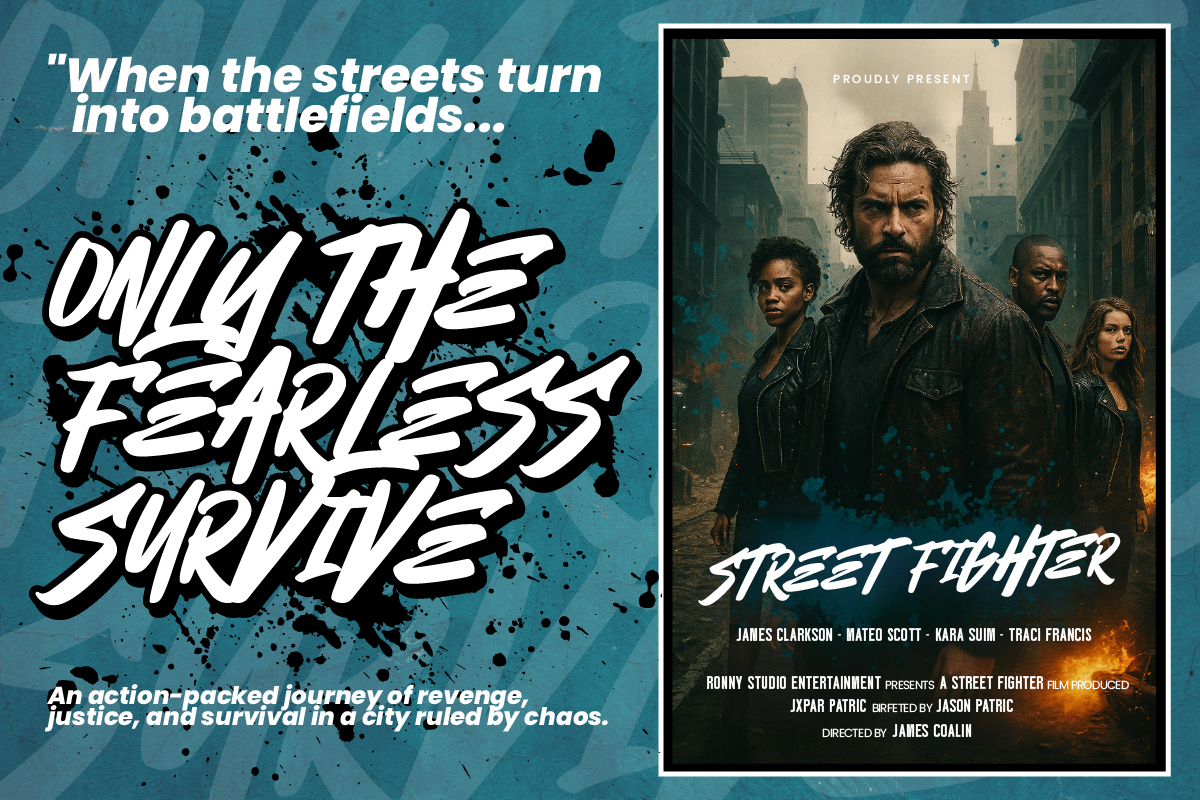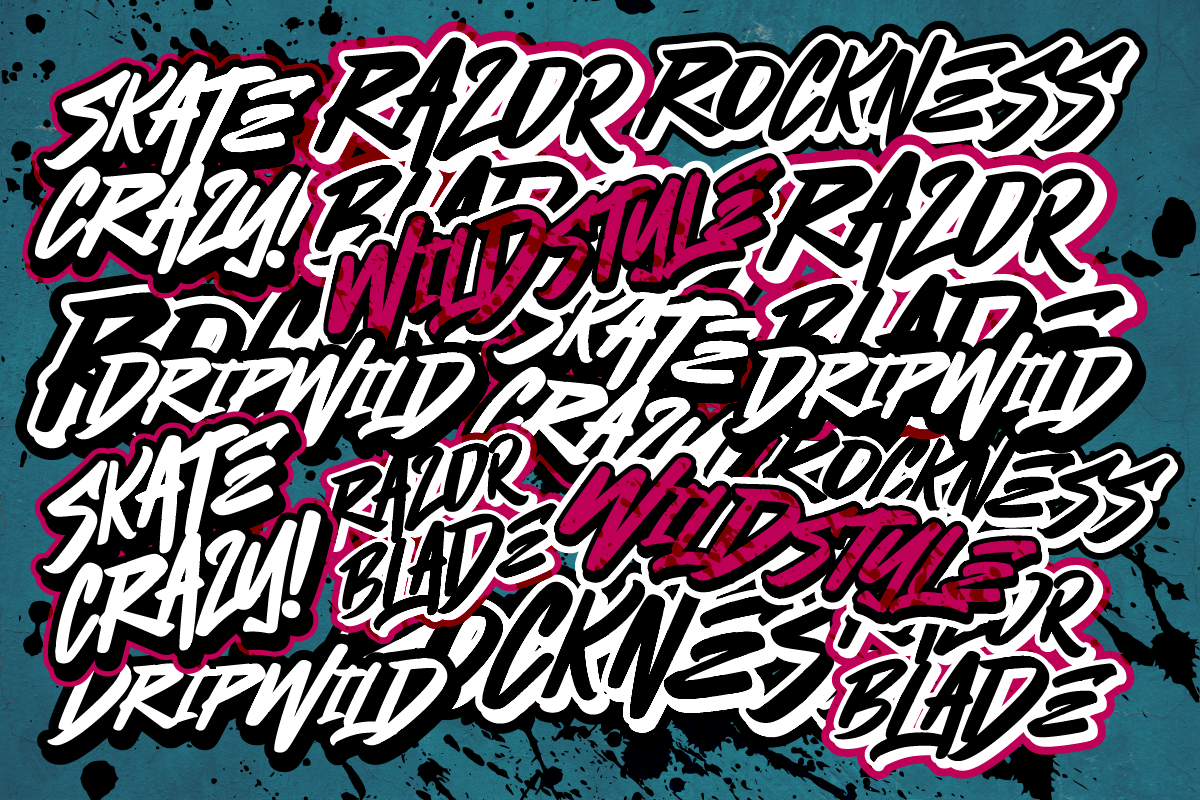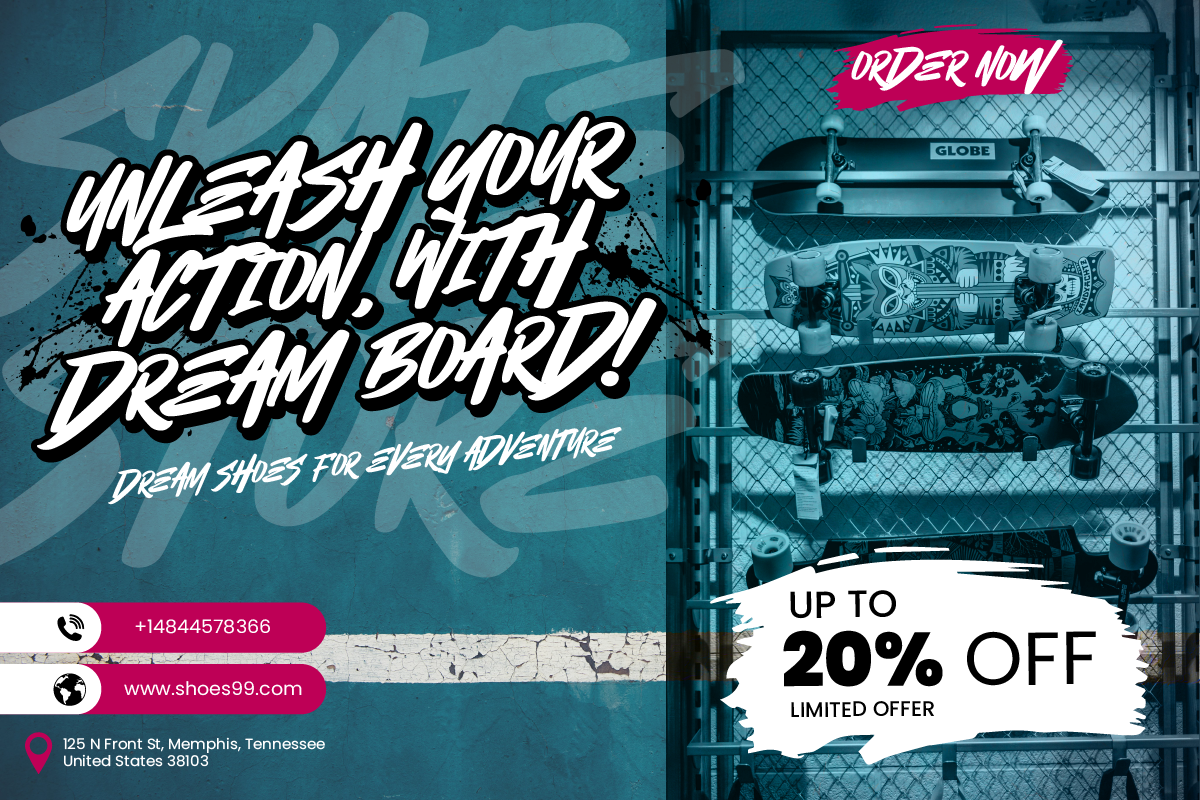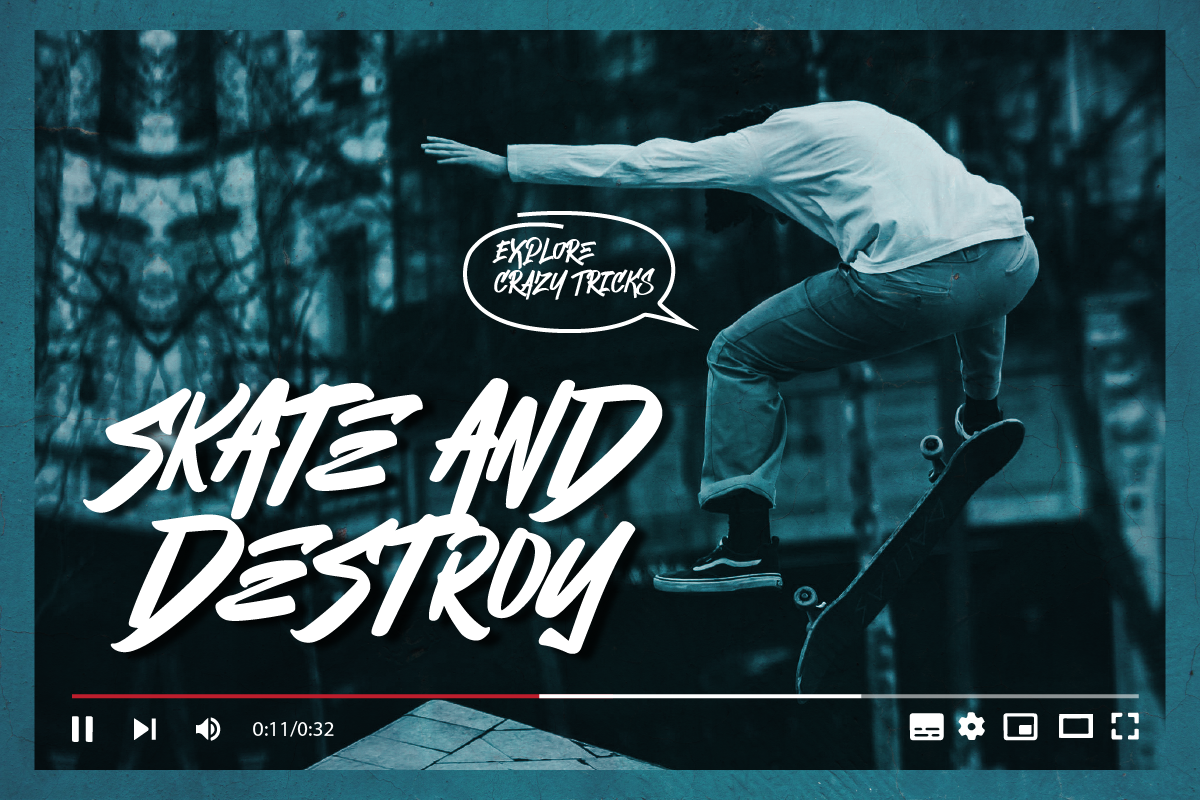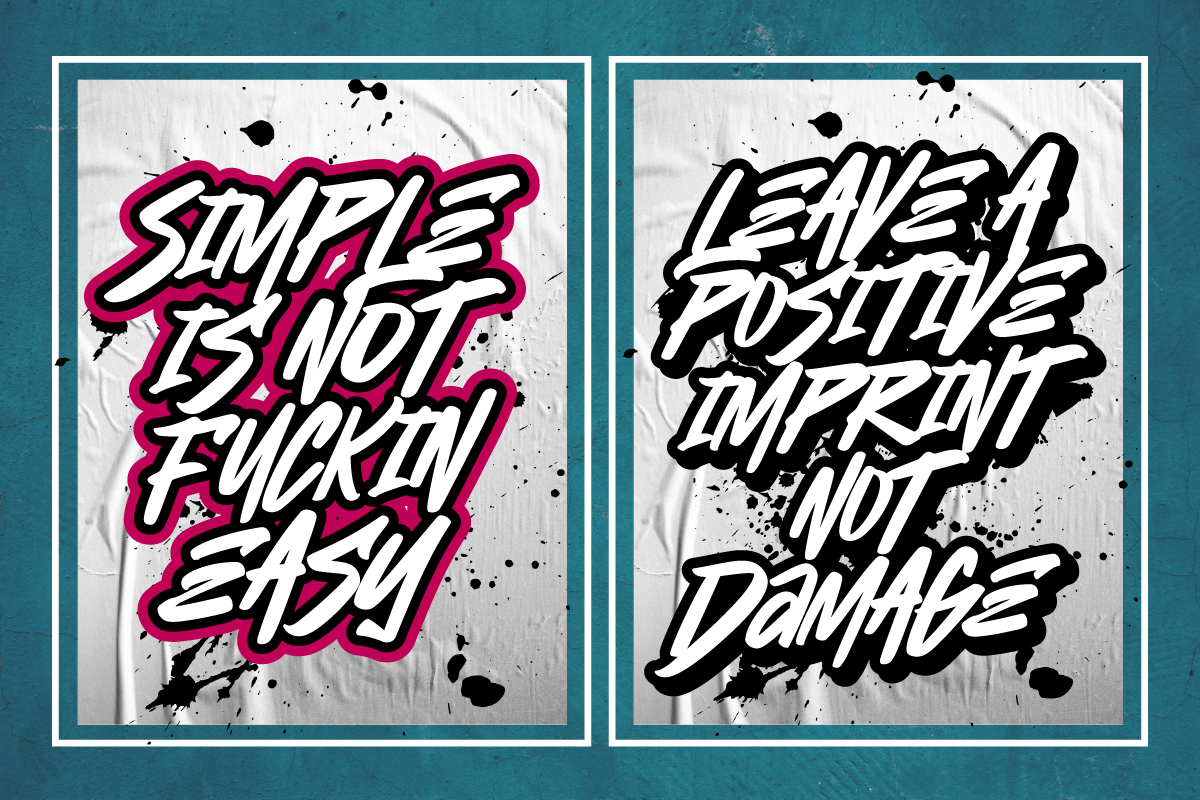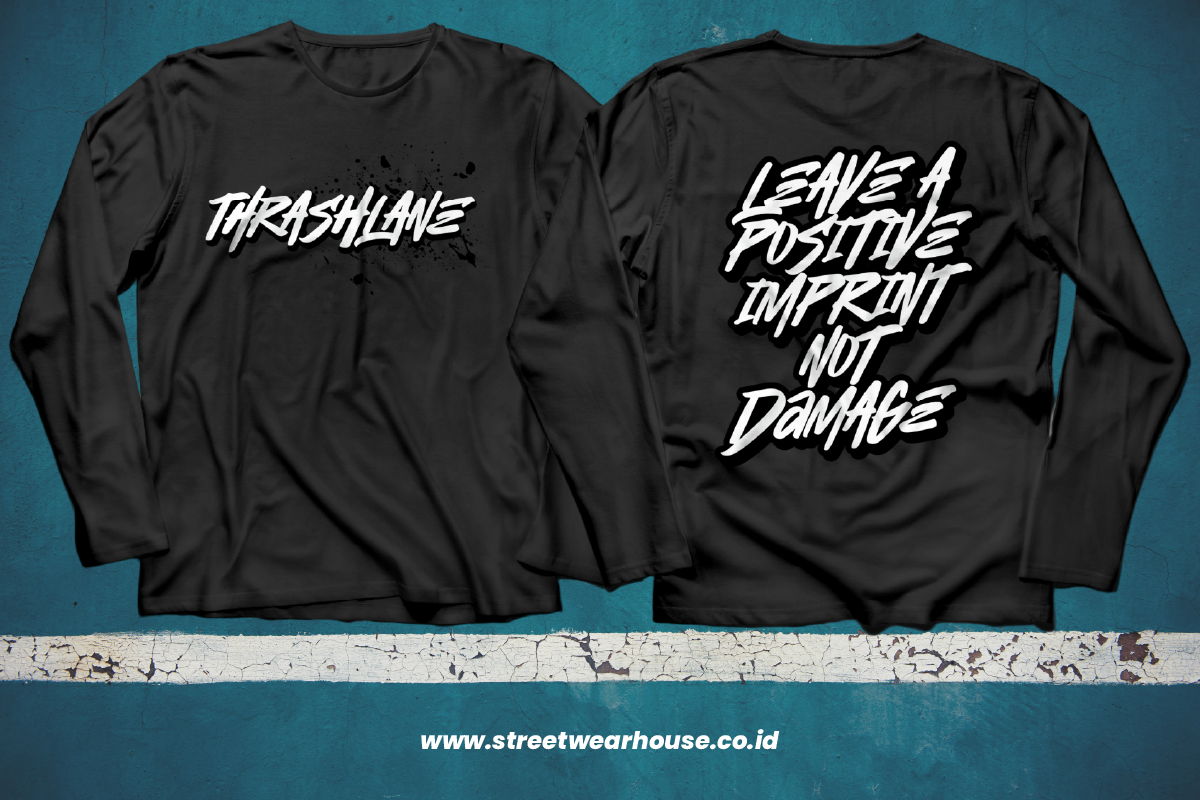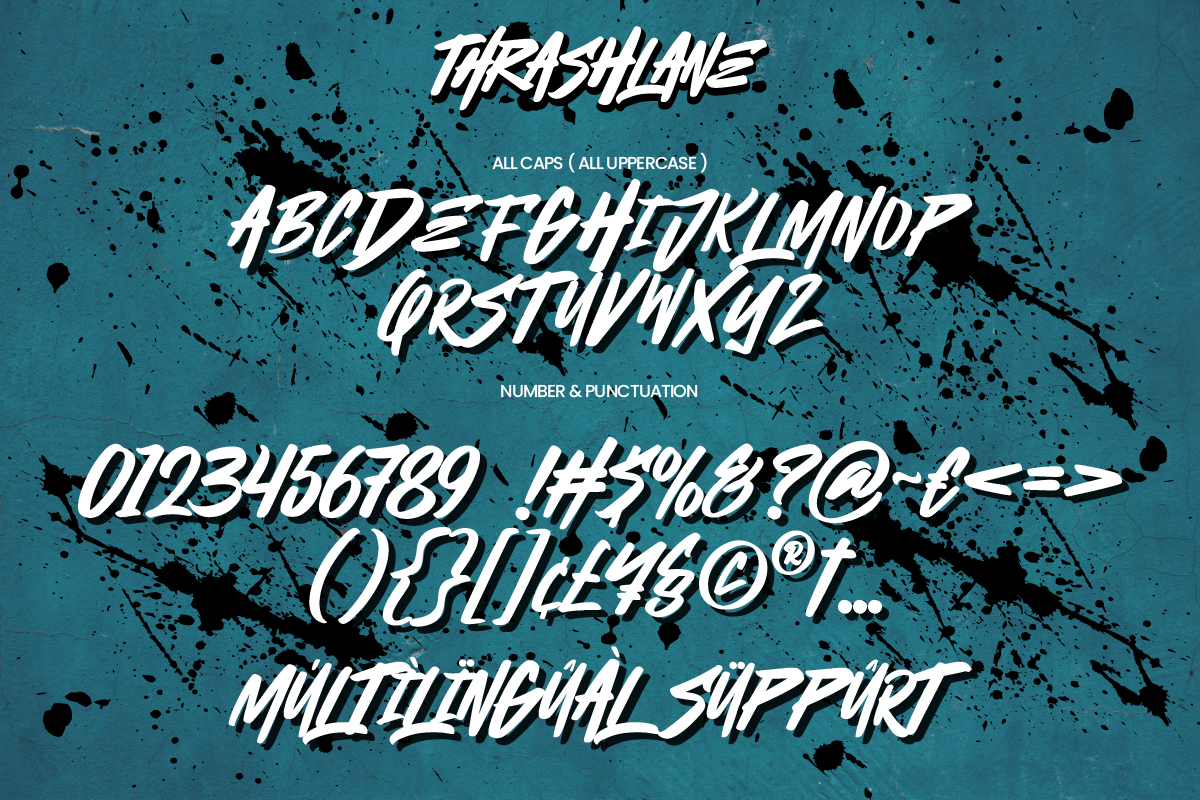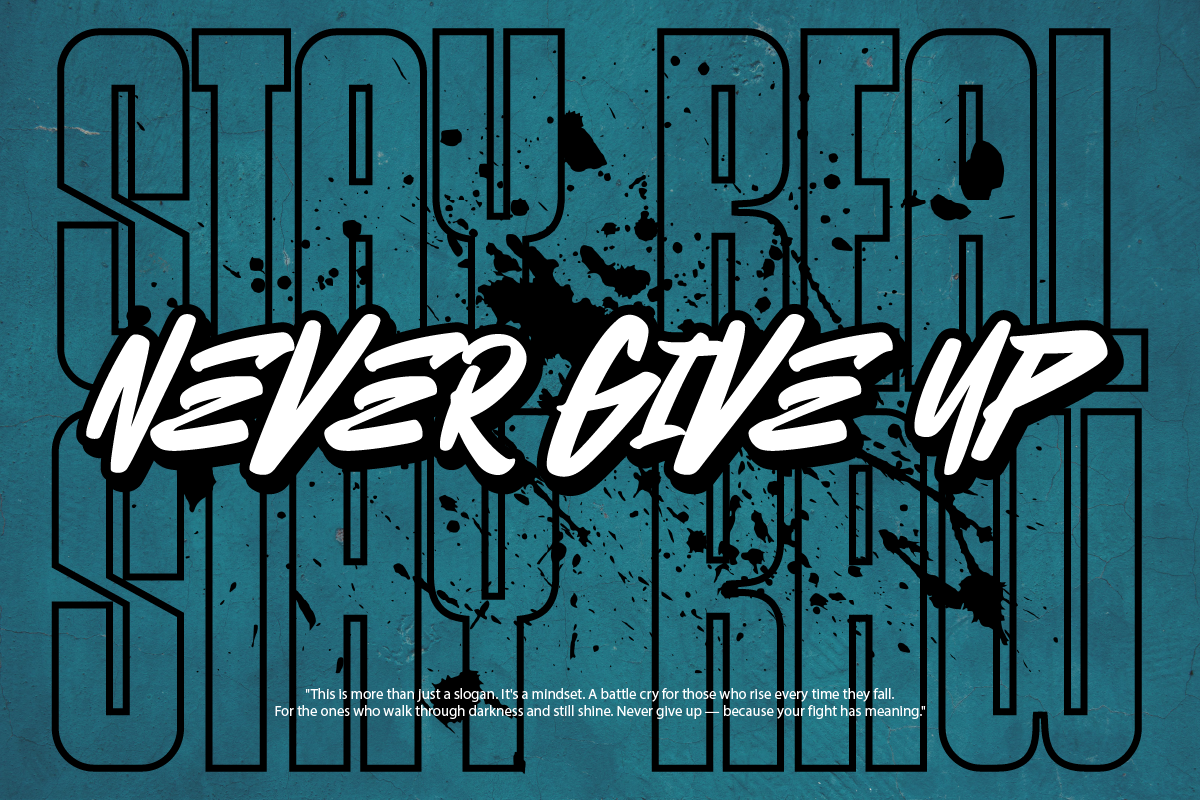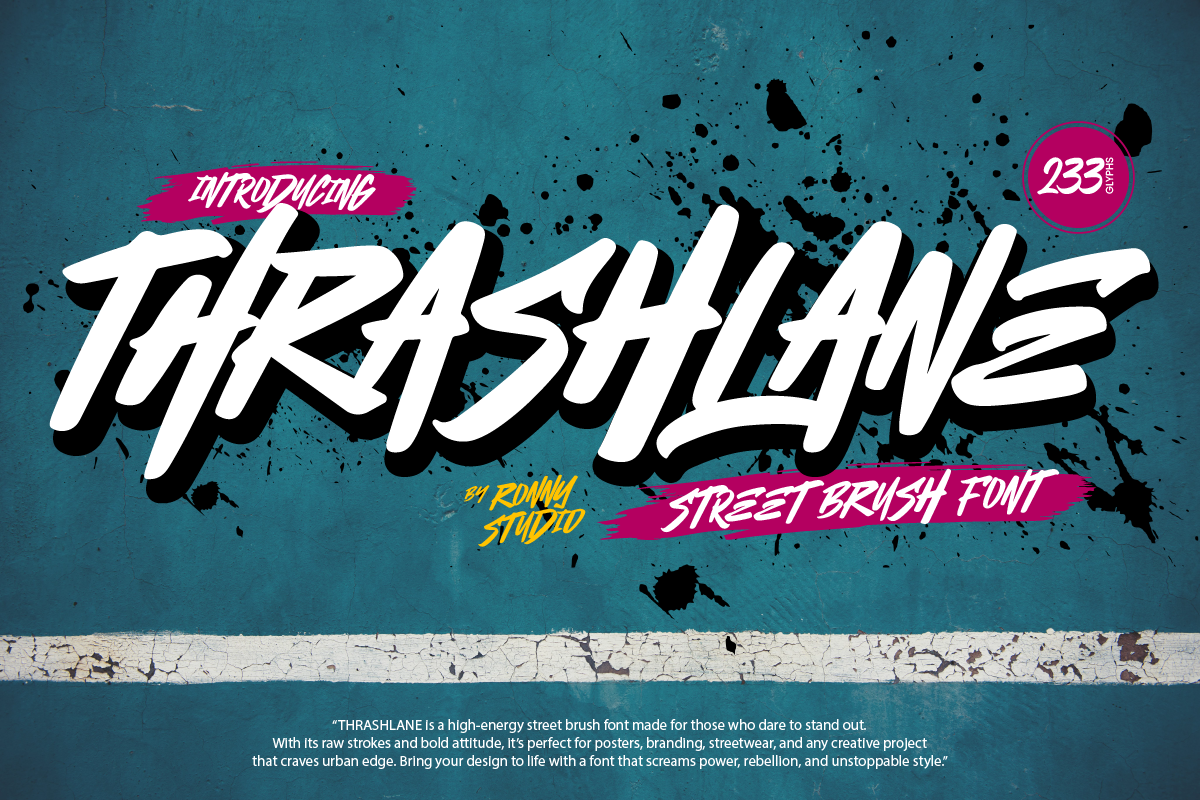
Thrashlane Bold Street Brush Font
Unleash the energy of rebellion and street spirit with Thrashlane, a powerful brush typeface inspired by skate culture, graffiti tags, and underground movement. Every stroke is raw, loud, and unapologetically bold—perfect for creators who design without limits.
Whether you're crafting apparel designs, album covers, posters, or action-themed branding, Thrashlane brings that unfiltered attitude that hits hard and stands tall.
✨ Font Features:
- Authentic hand-drawn street brush style
- Full uppercase & lowercase, numbers, symbols & punctuation
- Multilingual support for global reach
- PUA Encoded – easy access to alternates & ligatures
🔥 Perfect For:
- Urban fashion & streetwear branding
- Skateboard culture promotions
- Graffiti-inspired editorial & posters
- Music album covers (hip-hop, punk, rock)
- Movie titles, merchandise, stickers & decals
- Bold social media quotes and digital artwork